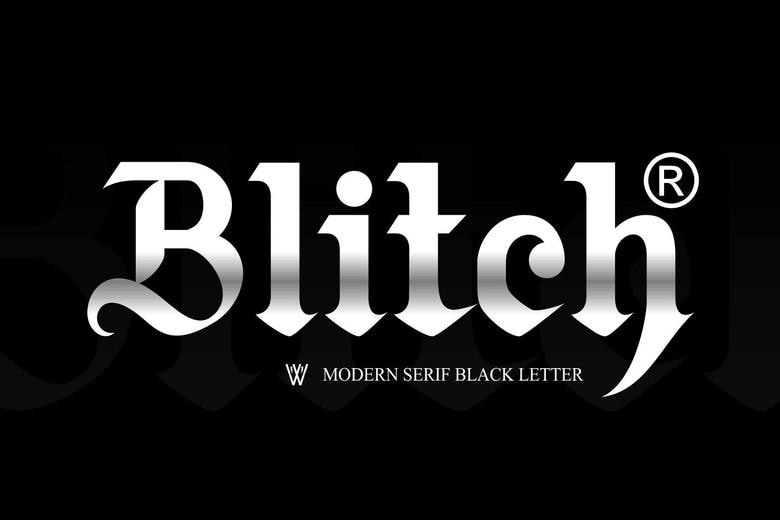
Blitch Font
Brand your design projects using Blitch Modern Blackletter Tattoo Font, a painstakingly crafted font that offers the artist and designer an authentic look of tattoo typography. The font is ideal when making a design of custom tattoos and logos. These fonts can be used with Procreate and Photoshop and smoothly fit into your creative process. The fonts are all created to be versatile and unique and therefore your designs will be distinct.
Blitch Blackletter Font